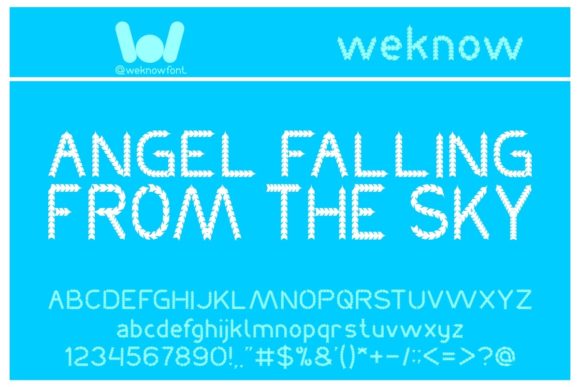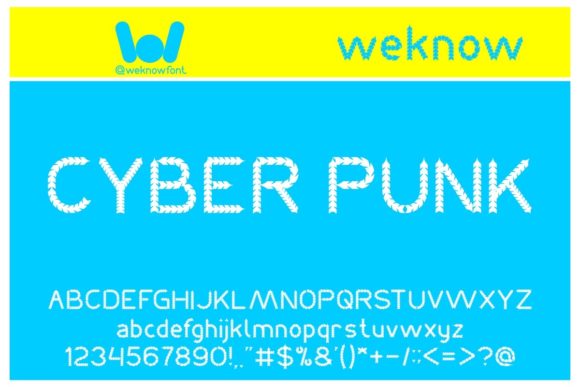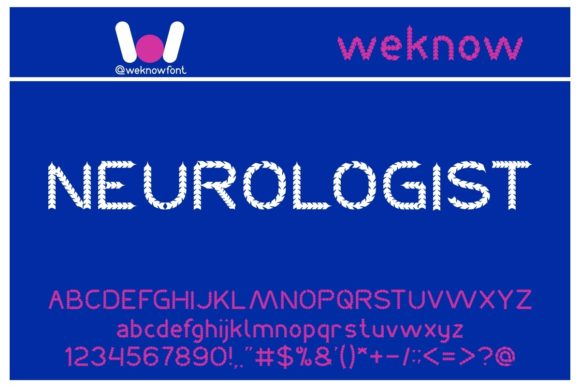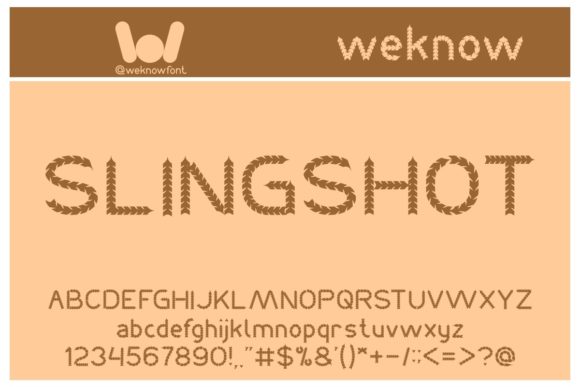
Introducing Black Arrow Font: The Ultimate Display Font for Creative Projects
Are you a designer or crafter looking for a unique and fancy display font to elevate your creative projects? Look no further than Black Arrow Font. This stunning font is perfect for a wide range of applications, from logos and logotypes to headlines, corporate identities, and brand identities. In this article, we’ll explore the features and benefits of Black Arrow Font, and why it’s a must-have for any designer or crafter.
What is Black Arrow Font?
Black Arrow Font is a bold and eye-catching display font that is designed to make a statement. Its unique and fancy design makes it perfect for a variety of creative projects, including logos, logotypes, headlines, and more. The font features a distinctive arrow-like design element that gives it a dynamic and edgy feel.
Key Features of Black Arrow Font
- Unique and fancy design: Black Arrow Font features a one-of-a-kind design that is sure to turn heads.
- Bold and eye-catching: The font’s bold and heavy design makes it perfect for headlines, titles, and other display text.
- Versatile: Black Arrow Font can be used for a wide range of creative projects, from logos and branding to posters, flyers, and more.
- Easily readable: Despite its bold design, Black Arrow Font is surprisingly easy to read, making it perfect for use in a variety of contexts.
Use Cases for Black Arrow Font
Black Arrow Font is a versatile font that can be used for a wide range of creative projects. Here are just a few examples of how you can use this amazing font:
- Logo design: Black Arrow Font is perfect for creating unique and memorable logos that will help your brand stand out.
- Headlines and titles: The font’s bold and eye-catching design makes it perfect for use in headlines and titles.
- Corporate identity: Black Arrow Font can be used to create a bold and professional corporate identity for your business.
- Apparel industry: The font’s unique design makes it perfect for use in the apparel industry, from t-shirt designs to fashion branding.
- Posters and flyers: Black Arrow Font can be used to create eye-catching posters and flyers that will grab attention.
- Music and movie titles: The font’s bold and edgy design makes it perfect for use in music and movie titles.
- Game and comic titles: Black Arrow Font can be used to create bold and eye-catching titles for games and comics.
- Magazine and book titles: The font’s unique design makes it perfect for use in magazine and book titles.
- YouTube and Instagram: Black Arrow Font can be used to create eye-catching titles and graphics for YouTube and Instagram.
- Websites: The font’s bold and professional design makes it perfect for use on websites.
Why Choose Black Arrow Font?
So why should you choose Black Arrow Font for your creative projects? Here are just a few reasons:
- Unique design: Black Arrow Font features a one-of-a-kind design that will help your project stand out.
- High-quality: The font is designed to be high-quality and easy to read.
- Versatile: Black Arrow Font can be used for a wide range of creative projects.
- Easily customizable: The font can be easily customized to fit your project’s needs.
Black Arrow Font is a unique and versatile display font that is perfect for a wide range of creative projects. Its bold and eye-catching design makes it perfect for use in headlines, titles, and other display text. With its high-quality design and ease of use, Black Arrow Font is a must-have for any designer or crafter looking to elevate their creative projects.